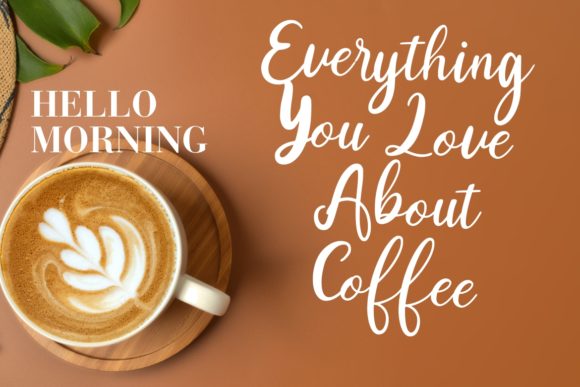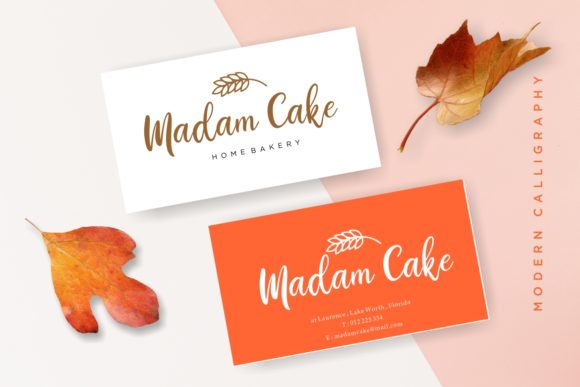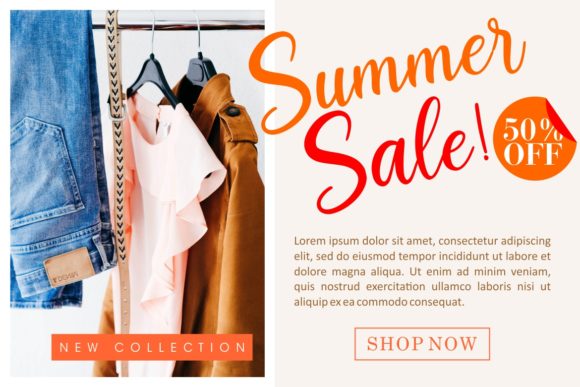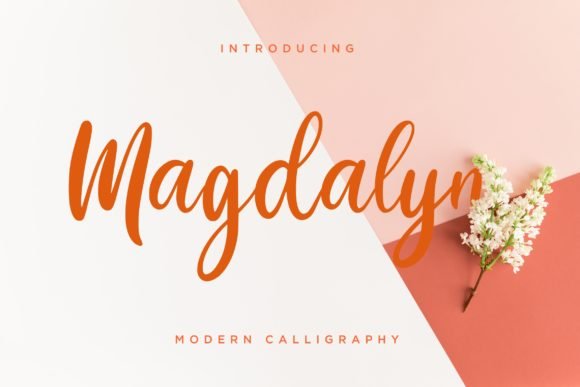
Introduction to Magdalyn Font
Magdalyn is a beautiful and flowing handwritten font, designed with the help of a brush pen.
Fall in love with its incredibly versatile style and use it to create gorgeous wedding invitations, beautiful stationary art, eye-catching social media posts, and much more .
Magdalyn Font offers exceptional quality and versatility, making it a valuable addition to your design toolkit. Whether you’re creating for personal projects or commercial use, Magdalyn Font delivers professional results.